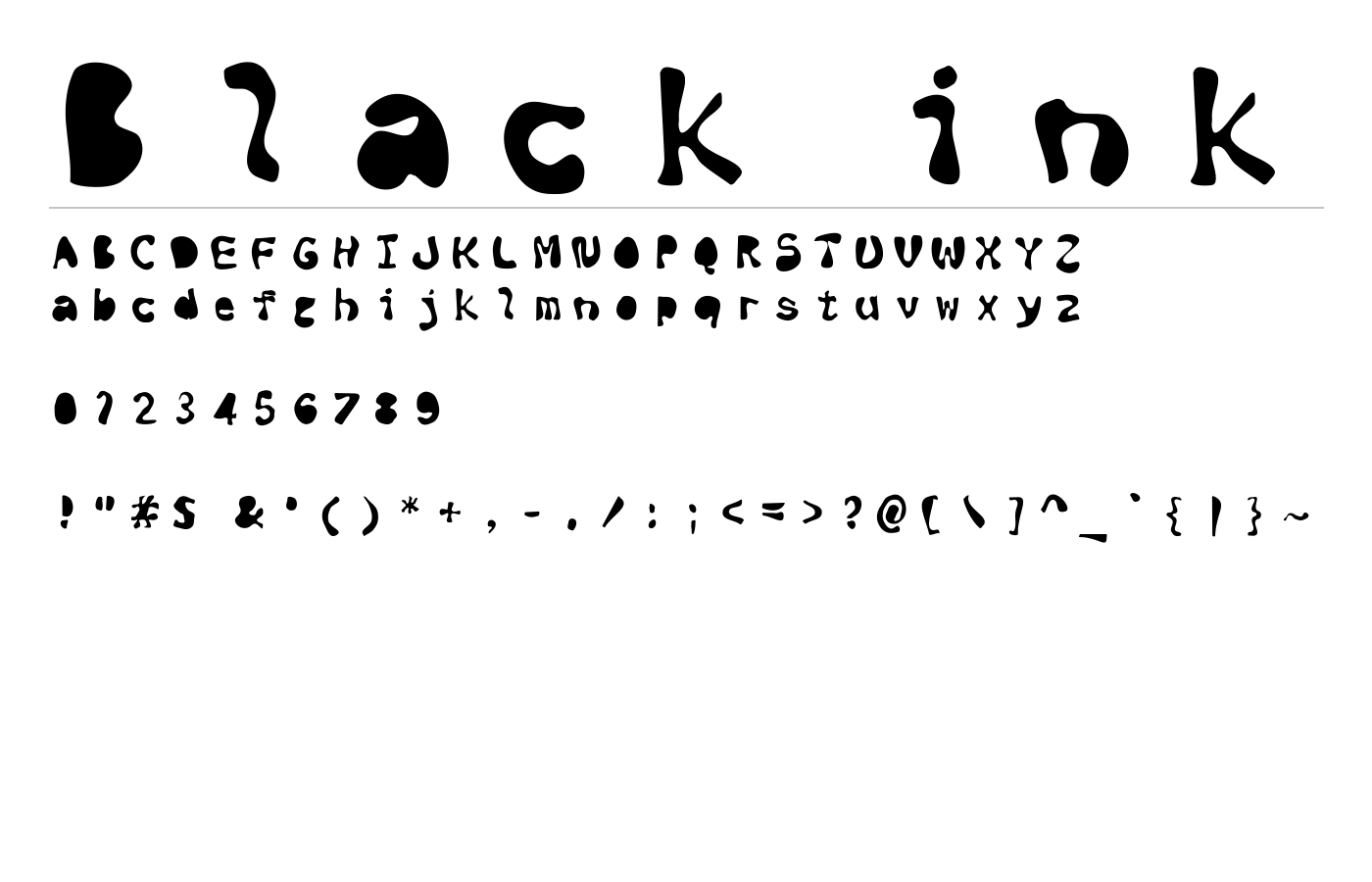
Black Ink is a quirky, hand-drawn sans serif font with irregular shapes and varied stroke widths that give it a playful, organic feel. Its bold, uneven letterforms suggest creativity and individuality, making it ideal for casual, artistic, or fun branding, packaging, and headlines where a unique, informal voice is desired. This font adds personality and a handcrafted touch to designs looking to stand out with a lively and approachable style.
Black ink Font
About Black ink Font
| Font family | Black ink Font |
| Designer | Martin Steiner |